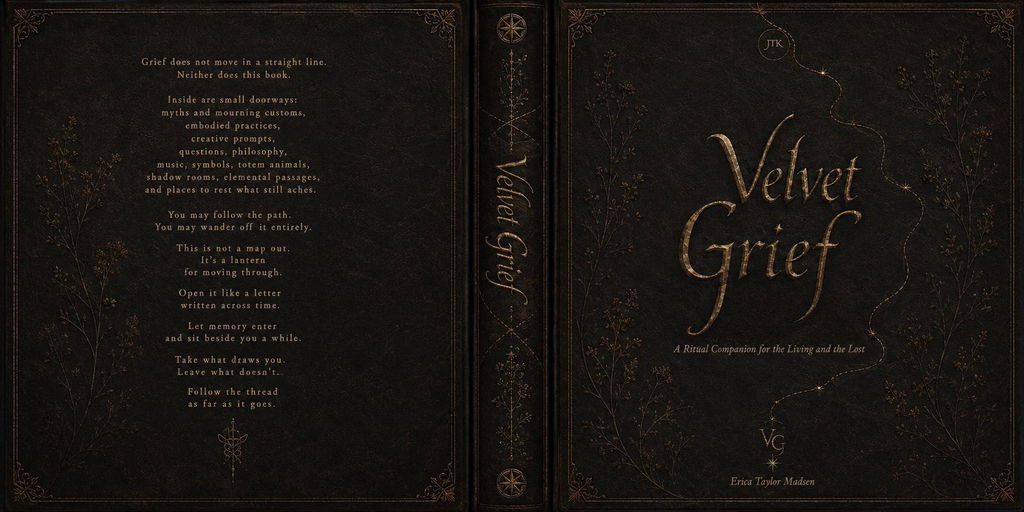
Fabled Hand
Fabled Hand is a vintage, whimsical handwritten font designed for storytellers, digital artists, and game masters. This fantastical script is perfectly suited to ancient map labels, bewitching branding layouts, cottagecore packaging design, and custom TTRPG character sheets or props for your gaming sessions. Its letterforms feel playful yet aged, shaped entirely by the charm of old storybooks and handwritten notes from forgotten worlds.
Featuring both uppercase and lowercase characters in two distinct weights, regular and bold, Fabled Hand offers immense flexibility for a wide range of creative projects. A generous set of built-in uppercase alternates allows you to add organic variety and decorative flourish to your layouts, giving each piece a handcrafted, magical touch.
- 2 Font Weights:** Includes both Regular and Bold styles for hierarchical headers and body copy text.
- Dynamic Typography: Built-in uppercase alternates and special decorative characters for an authentic handwritten aesthetic.
- Multilingual Support: With characters supporting 80 languages, Fabled Hand is a highly versatile typographic tool for fantasy creators and worldbuilders across many realms.
Ideal For Fantasy Creators & Worldbuilders
Fabled Hand is highly versatile and meticulously crafted to look like text pulled from an old-world compilation of legends or a wizard's field notes. It is the perfect typographic choice for:
- Fantasy Novels and Books: Whimsical chapter headers, fairy tale book covers, promotional graphics, and folklore-inspired interior layouts.
- Tabletop RPGs (TTRPGs): Custom character sheets, cozy homebrew modules, magical potion labels, tavern menus, and in-game journals for systems like Dungeons and Dragons, Pathfinder, or casual fantasy systems.
- Branding and Packaging: Logo design, product labels, merchandise, and cottagecore or artisanal apparel with a rustic, historical, or magical feel.